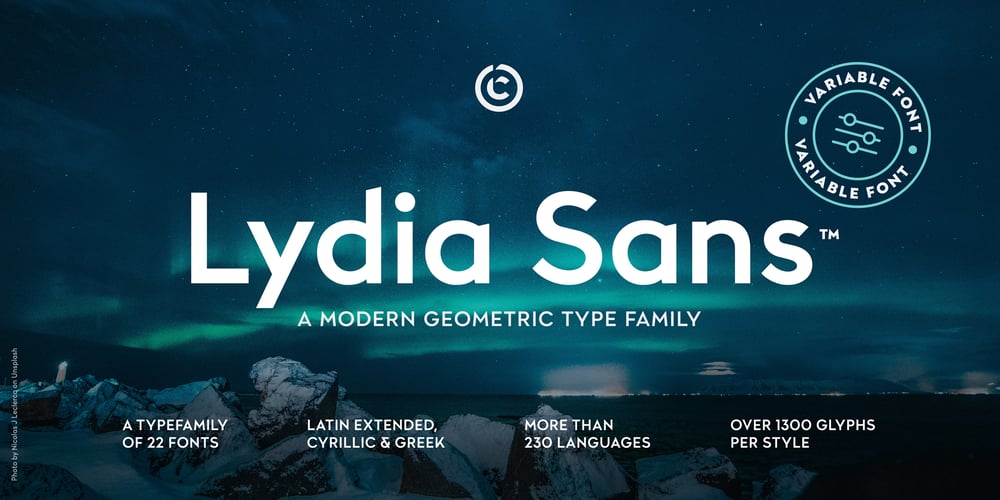
Lydia Sans Font Family was designed by João Cracel and published by Craceltype. Lydia Sans contains 24 styles and family package options. Lydia Sans™ is an elegant geometric sans serif with a charming profile and organic flow. Inspired by the clean typography of the 1920s, it’s character and legibility make it suitable for any kind of text applications, from brand design to extensive text layouts.Lydia Sans™ has 22 styles, variable font technology and its weight range spreads from hairline to ultra bold forms. Flexible and adaptable, it covers 230+ languages, including extended Latin, Cyrillic and Greek writing systems. With over 1300 glyphs per style, its Opentype features include alternative shapes, small caps, standard and discretionary ligatures, localised forms in Latin and Cyrillic, case sensitive forms, numerators and denominators, proportional and tabular figures, slashed zero, fractions and more. As a workhorse type system, Lydia Sans™ is a sans serif for everyday use and a great choice for a wide range of applications.• Suggested uses: perfect for brand design, editorial design, web design and packaging design;• 22 styles: 11 weights + 11 italics.• 2 variable fonts;• 1315 glyphs in each weight;• OpenType features: Access All Alternates, Small Capitals From Capitals, Contextual Alternates, Case-Sensitive forms, Glyph Composition, Discretionary Ligatures, Denominators, Fractions, Standard Ligatures, Lining Figures, Localised forms, Numerators, Oldstyle Figures, Scientific Inferiors, Small Capitals, Stylistic Alternates, Stylistic Set 1, Stylistic Set 2, Stylistic Set 3, Stylistic Set 4, Stylistic Set 5, Stylistic Set 6, Stylistic Set 7, Stylistic Set 8, Subscript, Superscript, Tabular Figures, Slashed Zero;• 220 languages supported (extended Latin, Cyrillic, Greek alphabets).